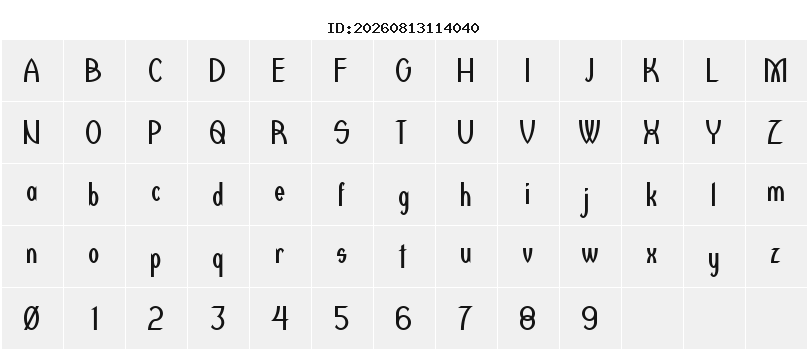
Redcat Preview
• Font Name: Redcat
• Full Font Name: Redcat
• Designer: Krunoslav Šokić
• Manufacturer: Krunoslav Šokić
About Redcat.ttf
Redcat.ttf is a modern, elegant sans-serif font designed for ultimate readability and visual harmony. Perfect for branding, headlines, web design, and print materials.